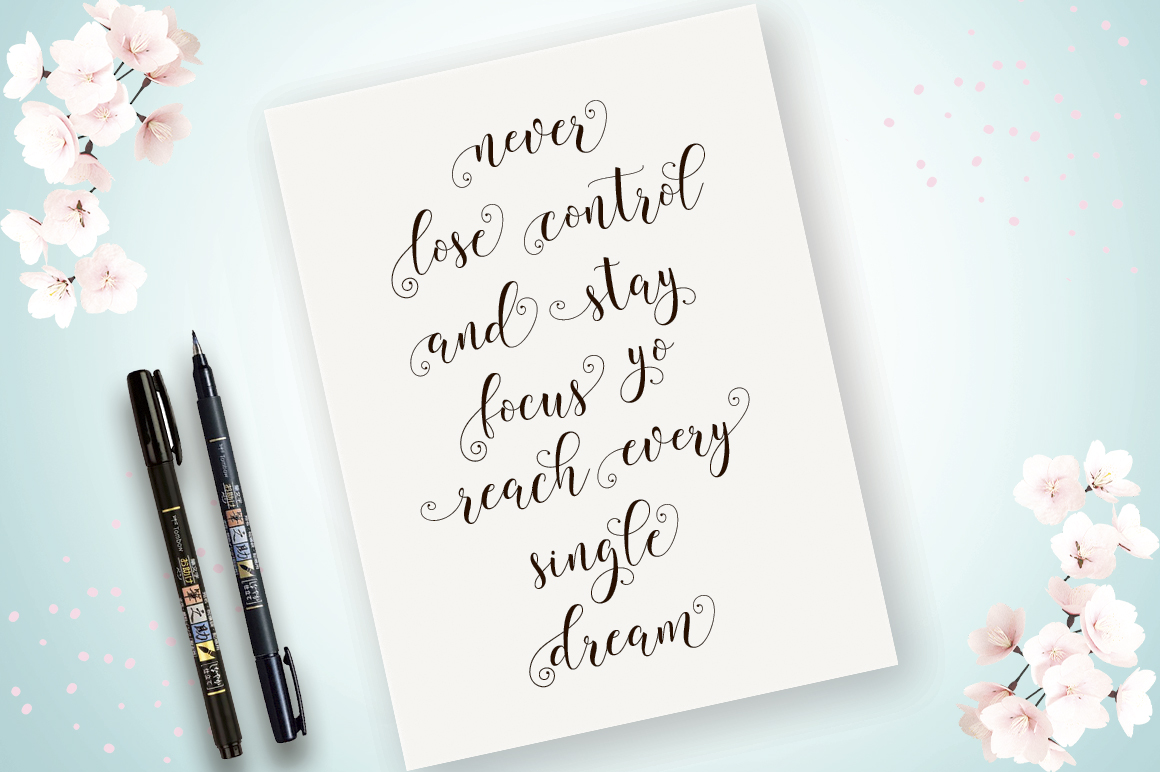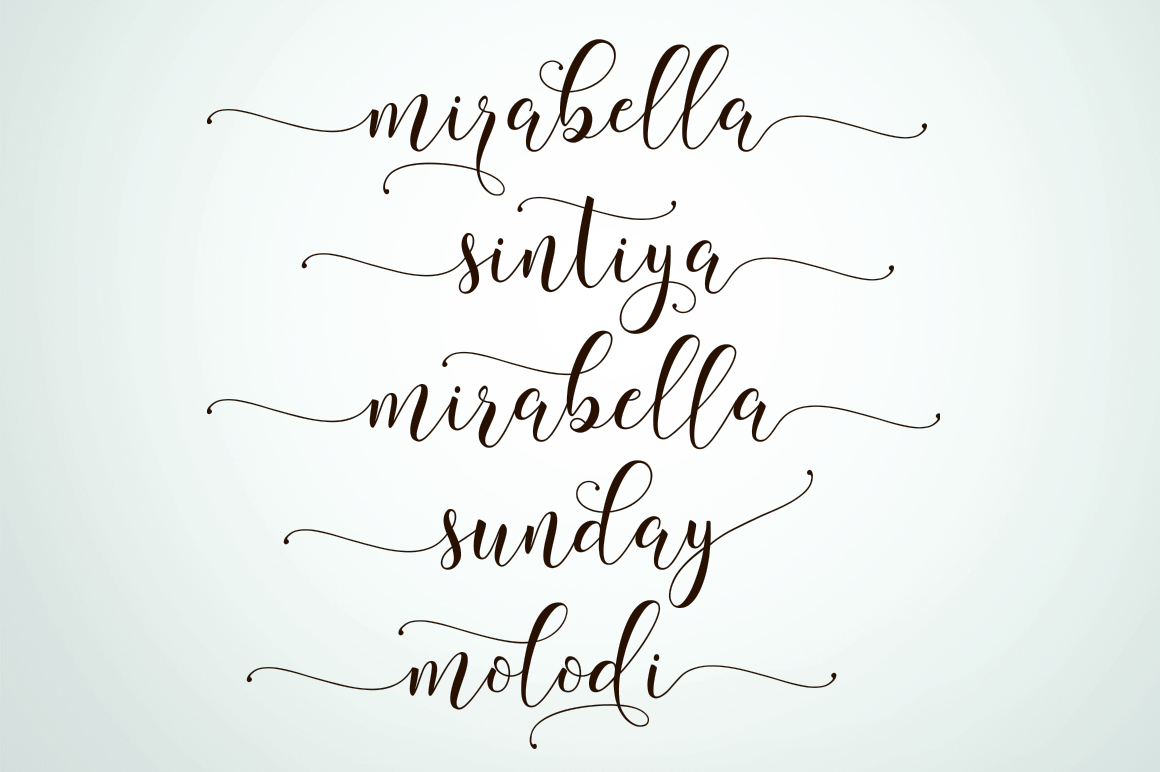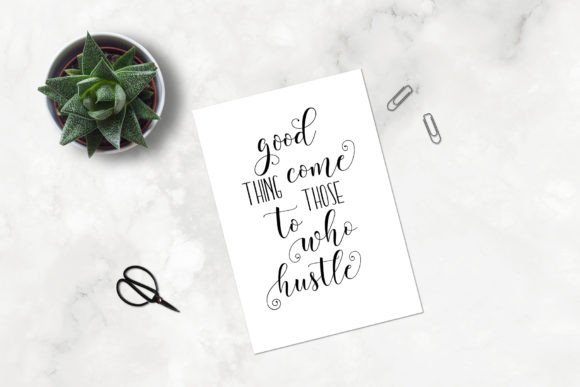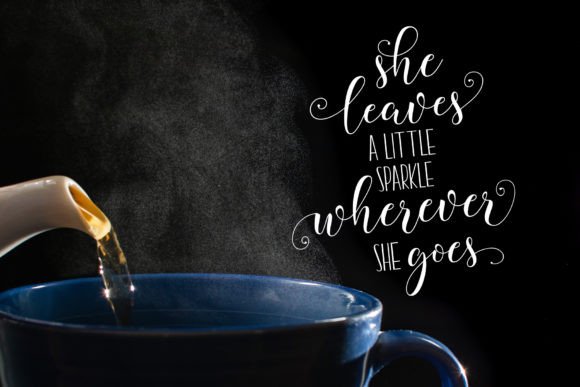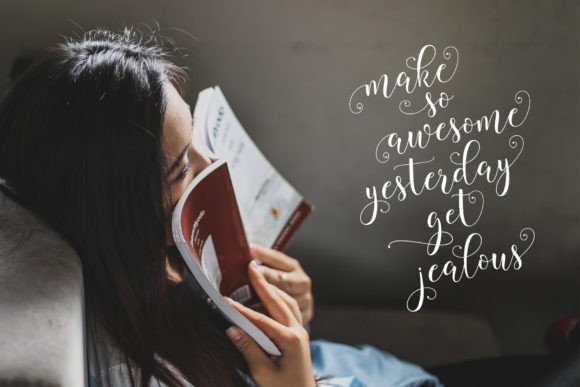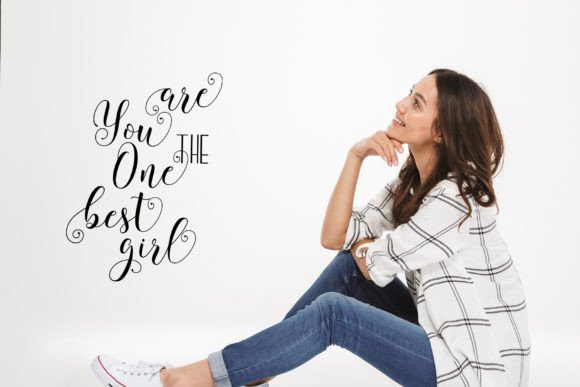
Unleash Your Creativity with the Billgrotia Script Font
Have you ever stared at a blank page, waiting for inspiration to strike? You know, that moment when the creative juices start flowing, and you envision the perfect design. For many designers, this is a familiar feeling, and it’s precisely where the Billgrotia Script Font comes in. This stunning font is designed to help you bring your ideas to life, adding a touch of elegance and sophistication to any project.
The Billgrotia Script Font is a beautifully crafted script that boasts gorgeous grounds, fine lines, and a perfect blend of style and functionality. Its versatility makes it an ideal choice for a wide range of designs, from wedding invitations to marketing materials, and even social media graphics. For designers, this font is a valuable asset, offering endless possibilities for creative expression and self-expression.
Billgrotia Script Font Key Features
• Font Family: Billgrotia Script Font, a beautiful and elegant script font
• Character Count: 800+ glyphs, including Latin, Greek, and Cyrillic characters, as well as punctuation and symbols
• Unique Characteristics: Billgrotia Script Font features a unique, hand-drawn design with flowing connections between letters, giving it a personal and elegant touch
Billgrotia Script Font Review
I recently had the chance to work with the Billgrotia Script Font, and I must say it’s a unique and interesting addition to any design project. Here’s my honest take on this script font.
• Custom hand-written feel: The Billgrotia Script Font has a genuine, hand-written feel that makes it perfect for creative projects.
• Expressive and elegant: This font is incredibly expressive, making it great for adding a touch of elegance to any design.
• Large character set: The font includes a wide range of characters, including ligatures and alternate characters, which adds to its versatility.
• Limited legibility at small sizes: At smaller sizes, the font can become a bit difficult to read due to its intricate design.
• Not suitable for body text: Due to its expressive nature, the font may not be the best choice for body text, but it’s perfect for headlines or titles.
The Billgrotia Script Font is a fantastic choice for designers who want to add a touch of personality to their projects. While it may have some limitations, its unique character and expressive nature make it a valuable addition to any design arsenal.
For a more polished look, pair Billgrotia Script with a clean sans-serif font.
For a more professional look, use Billgrotia Script in headings and subheadings.
Billgrotia Script Font is perfect for:
• Wedding invitations and stationery
• Branding and logo design
• Book titles and author names
Remember to pair Billgrotia Script with a clean and simple design to let the font